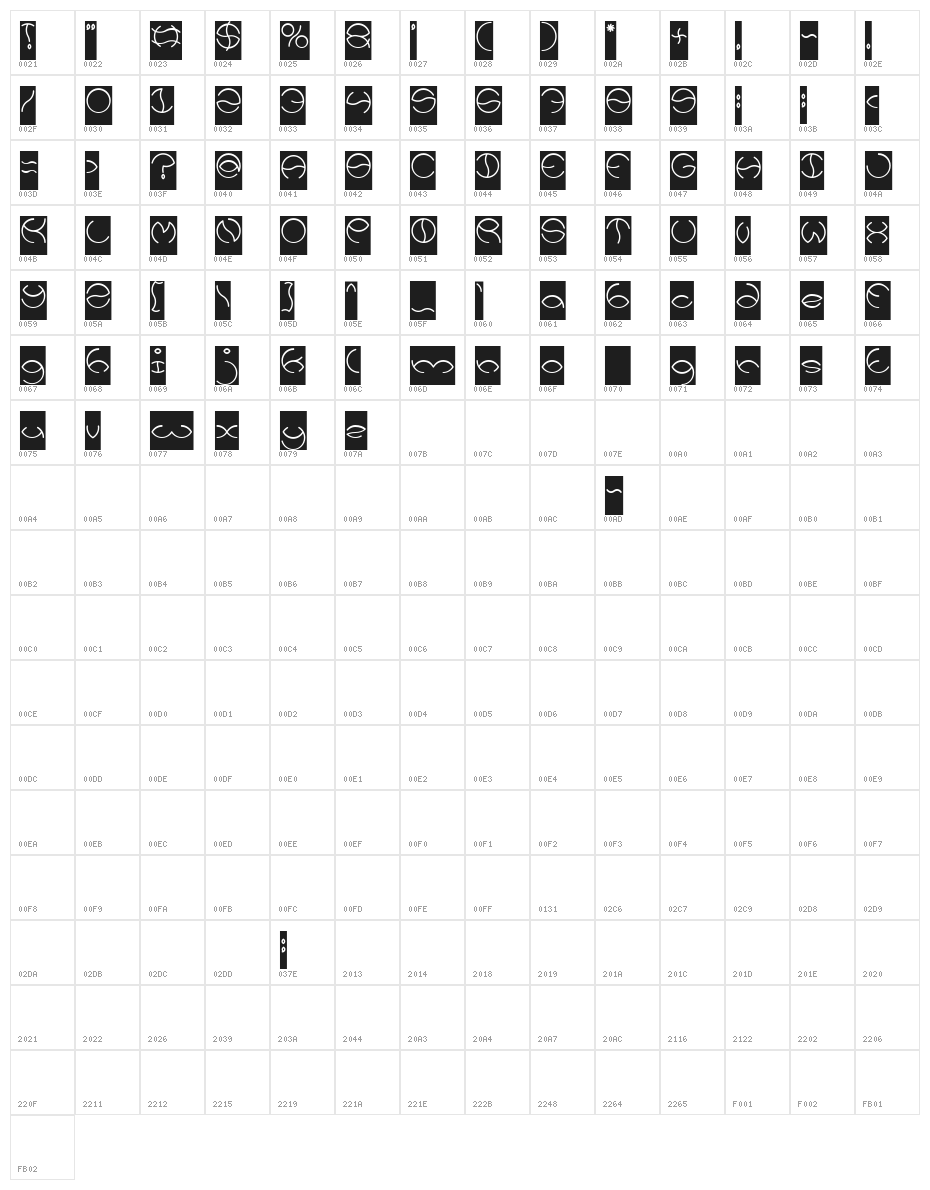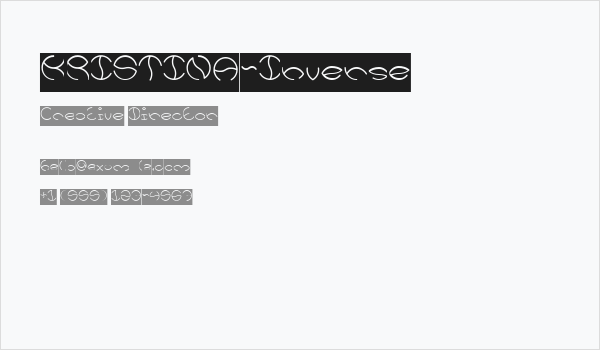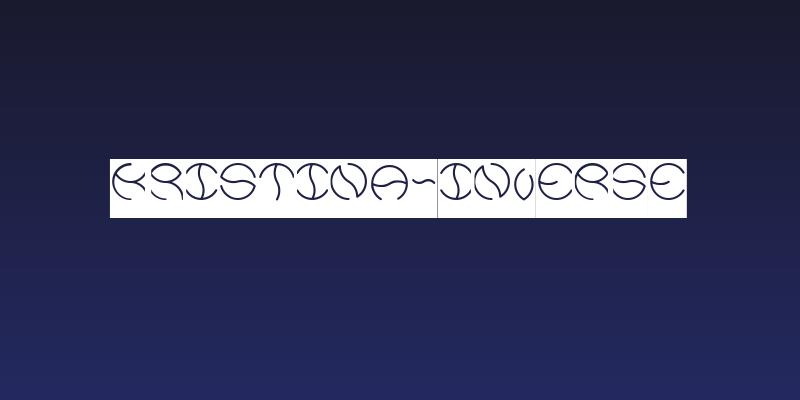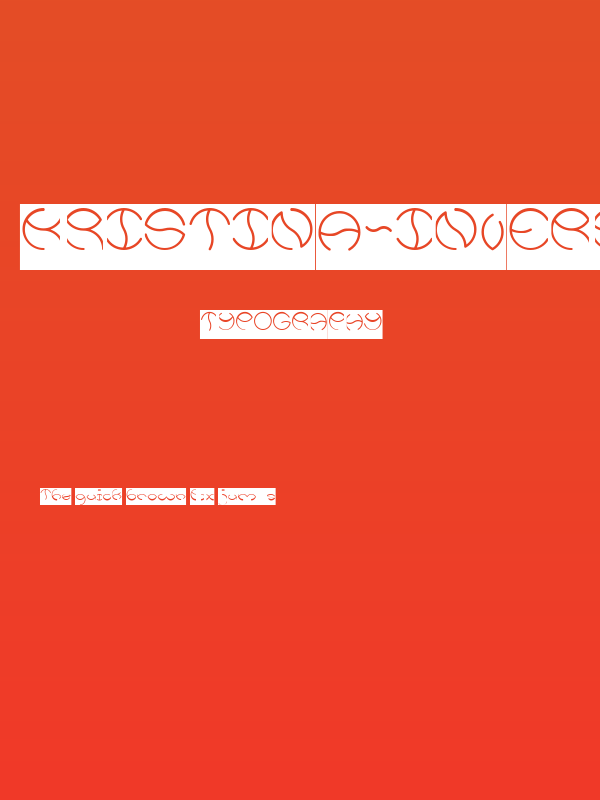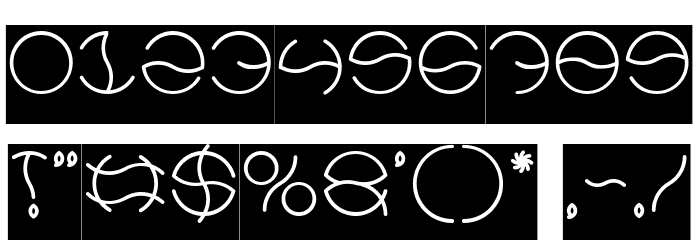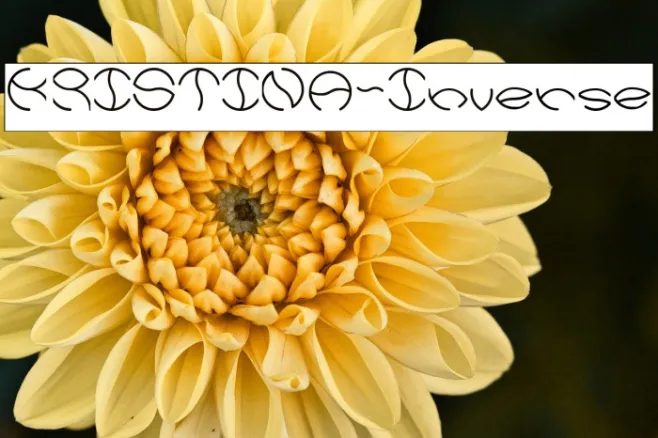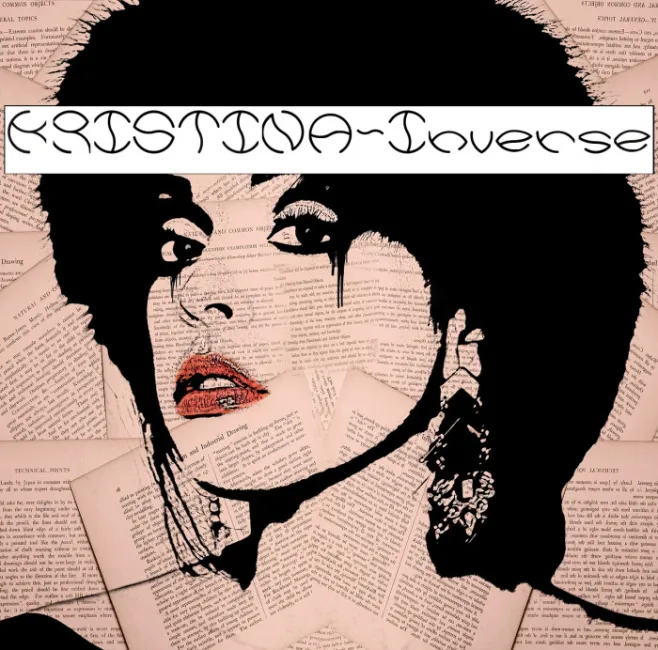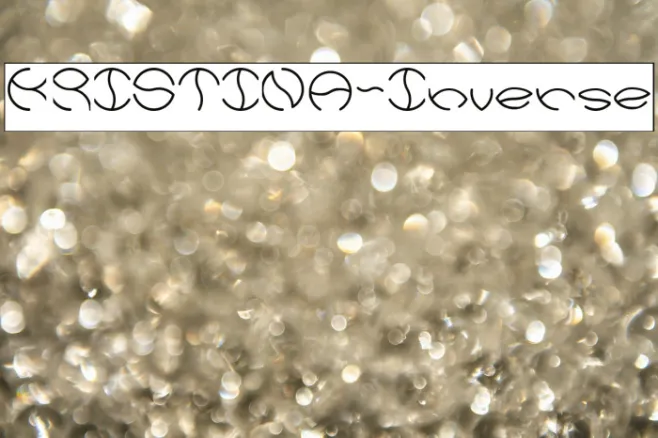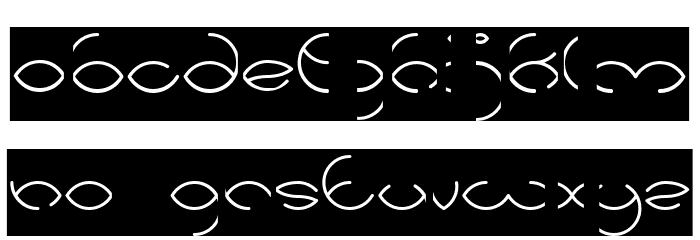
KRISTINA-Inverse Font
KRISTINA-Inverse Description
This font features a unique and artistic design with a modern twist. The characters are composed of smooth, flowing lines that create a sense of movement and elegance. Each letter is crafted with a combination of curves and sharp angles, giving it a distinctive and eye-catching appearance. The font maintains a consistent style across uppercase, lowercase, numbers, and special characters, ensuring a cohesive look. Its intricate design makes it suitable for creative projects where a bold statement is desired. The font's style is both contemporary and artistic, making it ideal for use in branding, logos, and decorative purposes.
| Use Case | Logos, Decorative designs |
| Proposed Projects | Ideal for branding, logos, artistic projects, and decorative designs. |